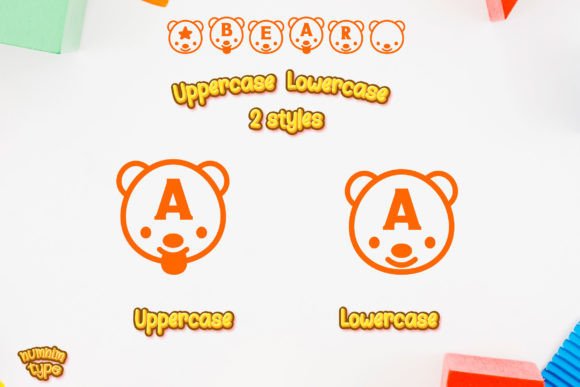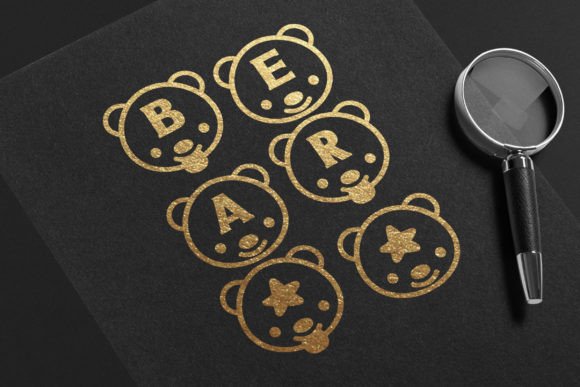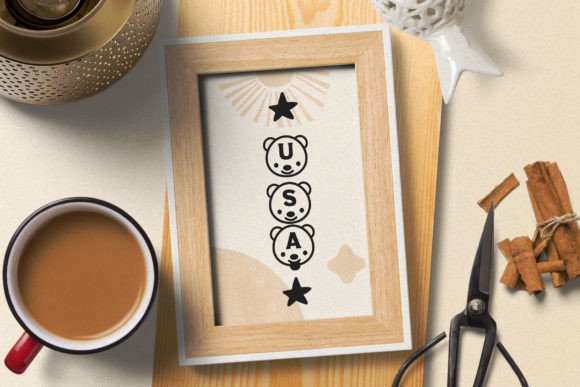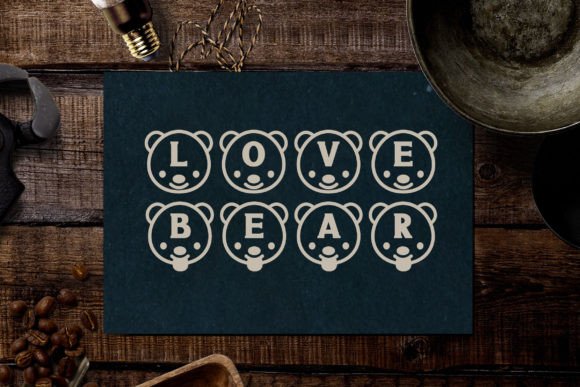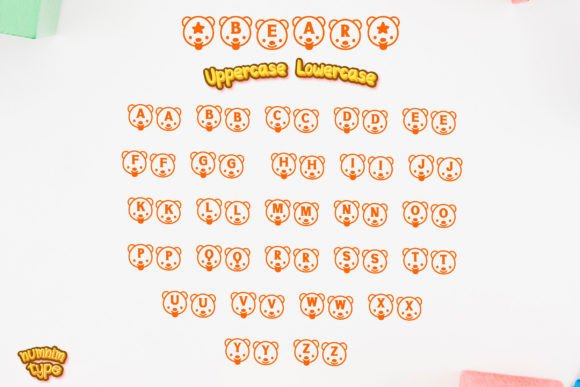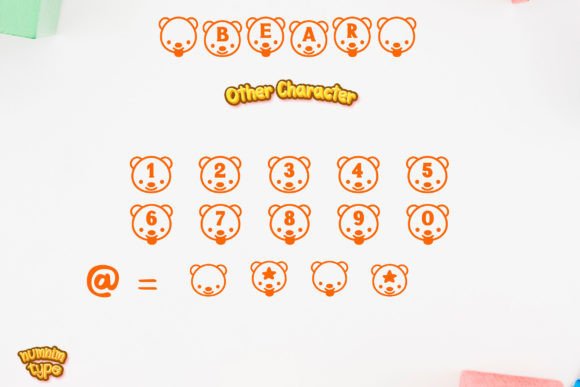
Discover the Cozy Charm of Bear Font
Remember that moment when you stumbled upon the perfect font for your project? The one that instantly elevated your design from ordinary to extraordinary? For many designers, that moment is what makes all the hard work worth it. And, if you’re looking for a font that embodies that magic, you’re in luck! Say hello to Bear Font – a cool and uniquely crafted decorative font that’s sure to put a smile on your face.
Bear Font is more than just a pretty face; it’s a versatile tool designed to bring joy and personality to your creations. Whether you’re designing stickers, mugs, t-shirts, or event invitations, Bear Font is the perfect companion to help you craft unique and eye-catching designs. Its fun and playful characters make it an invaluable asset for designers looking to add a touch of whimsy to their work.
- Unique Characteristics: The Bear Font features a distinctive, hand-drawn style with bold lines and expressive curves, making it suitable for use in titles, headings, and other display text.
Bear Font Review
I recently had the chance to work with the Bear Font, and I must say it’s an interesting addition to any design project. Here’s my honest review.
- Unique design: Bear Font has a distinct, modern feel to it that can add a touch of personality to your designs.
- High-quality graphics: The font files are well-crafted and provide crisp, clear results.
- Wide character set: The font includes a comprehensive set of characters, including international symbols and punctuation.
- Limited expressiveness: While the font is unique, it may not be expressive enough for certain design styles or applications.
- Not ideal for body text: Bear Font’s design makes it more suitable for headings or titles rather than large blocks of body text.
- No bold or italic versions: This can limit the font’s versatility and flexibility in certain design scenarios.
Overall, I think Bear Font is a solid addition to any design library, but it’s essential to understand its limitations and potential applications. With careful consideration, it can be a great choice for adding a modern touch to your designs.
Bear Font is a versatile font that can be used in a variety of contexts. Some common use cases include:
– Creating a fun and playful brand identity
– Designing social media posts and advertisements
– Adding a touch of whimsy to presentations and reports
– Creating custom invitations and party decorations
– Experimenting with different font combinations to create a unique look.